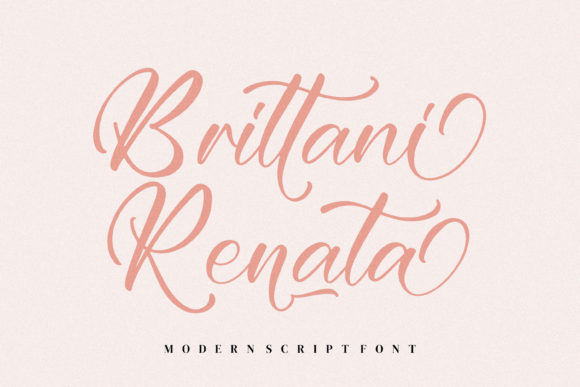
The Elusive Perfect Font: My Encounter with Brittani Renata
Ah, the quest for the perfect font. We’ve all been there – pouring over font libraries, scrolling through endless pages of Google Fonts, and still, nothing seems quite right. I recall working on a branding project for a luxury client, and no matter how hard I tried, I just couldn’t find a font that screamed ‘high-end’ and ‘sophisticated’. That was until I stumbled upon Brittani Renata, a premium and modern script font that instantly elevated my design game.
An Honest Review of Brittani Renata
- ✨ Elegant and sophisticated, perfect for luxury projects
- ✅ Highly versatile, suitable for logos, branding, packaging, and more
- 💫 Beautifully crafted, with intricate details and a unique character
- 📚 Extensive OpenType features, including glyphs and stylistic alternates
While Brittani Renata is an exceptional font, there are a few things to keep in mind:
- 🤔 May require some kerning adjustments, especially for larger text sizes
- ⚠️ Not ideal for body text or long-form content, due to its script nature
The Story Behind Brittani Renata
Brittani Renata was designed with the intention of creating a luxurious and modern script font. The designer aimed to craft a font that would be both elegant and versatile, suitable for a wide range of projects. While the exact story behind Brittani Renata may be unknown, it’s clear that the font was created with passion and attention to detail.
| Font Name | Brittani Renata Font |
| Author | integritypestudio |
Q: What type of projects is Brittani Renata suitable for?
A: Brittani Renata is perfect for luxury projects, such as logos, branding, packaging, and high-end design work.
Q: Is Brittani Renata a difficult font to read?
A: As a script font, Brittani Renata may be more challenging to read in large blocks of text. However, it’s perfectly suitable for titles, headings, and short text passages.